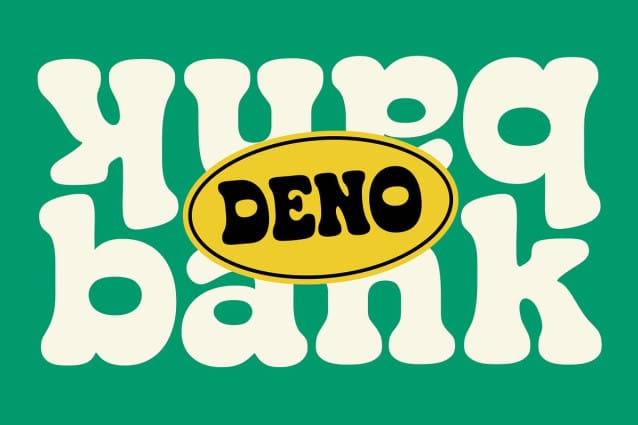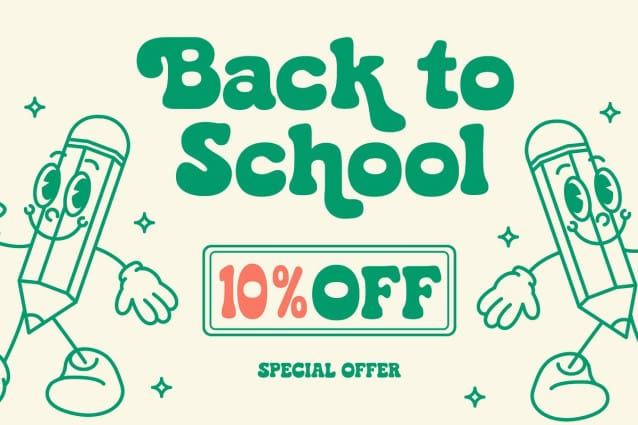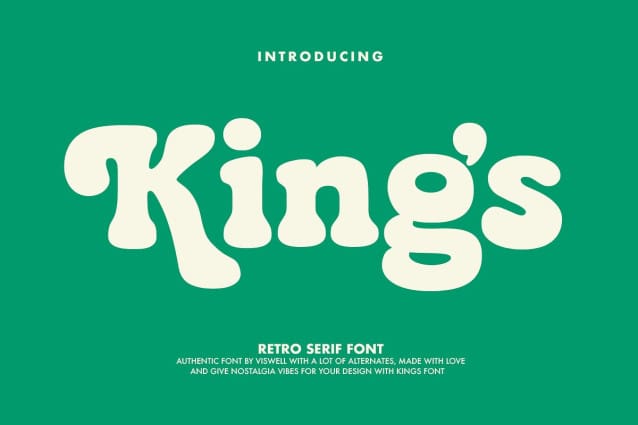
Kings Retro Font
Kings Retro Font, a retro groovy serif font packed with versatile alternate characters. Its timeless elegance and playful, vintage-inspired design make it perfect for eye-catching headlines, branding, and more. Let ‘Kings’ elevate your creative projects with its unique charm and flexibility.”